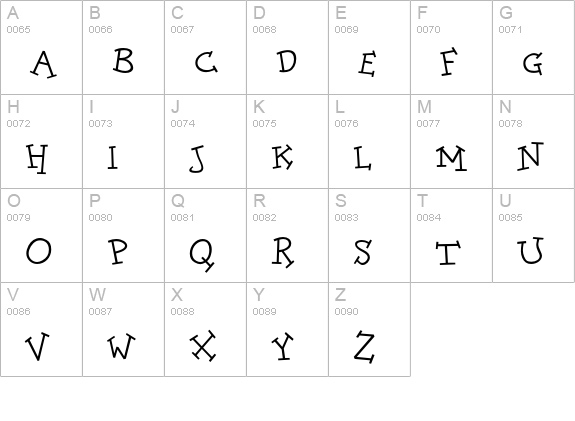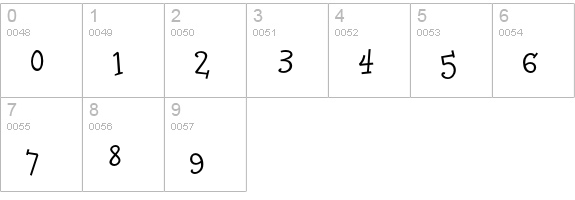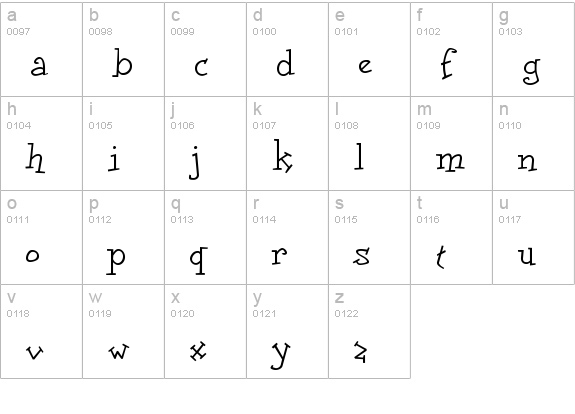
DoloresCyr-Regular Font Details
DoloresCyr-Regular is the standard, neutral variant in the DoloresCyr typeface family \xE2\x80\x94 well suited to general body text, paragraphs, and standard typographic work.
DoloresCyr-Regular is a stylish and elegant font that exudes sophistication and charm. Its clean lines and classic design make it perfect for a variety of projects, from branding to invitations. This versatile font is free to download at FontsMarket.com, making it easily accessible for all your design needs. Whether you're creating a logo, poster, or website, DoloresCyr-Regular is sure to add a touch of class to your work. With its timeless appeal and effortless beauty, this font is a must-have for any designer looking to elevate their projects. Download DoloresCyr-Regular today and see the difference it can make in your designs.